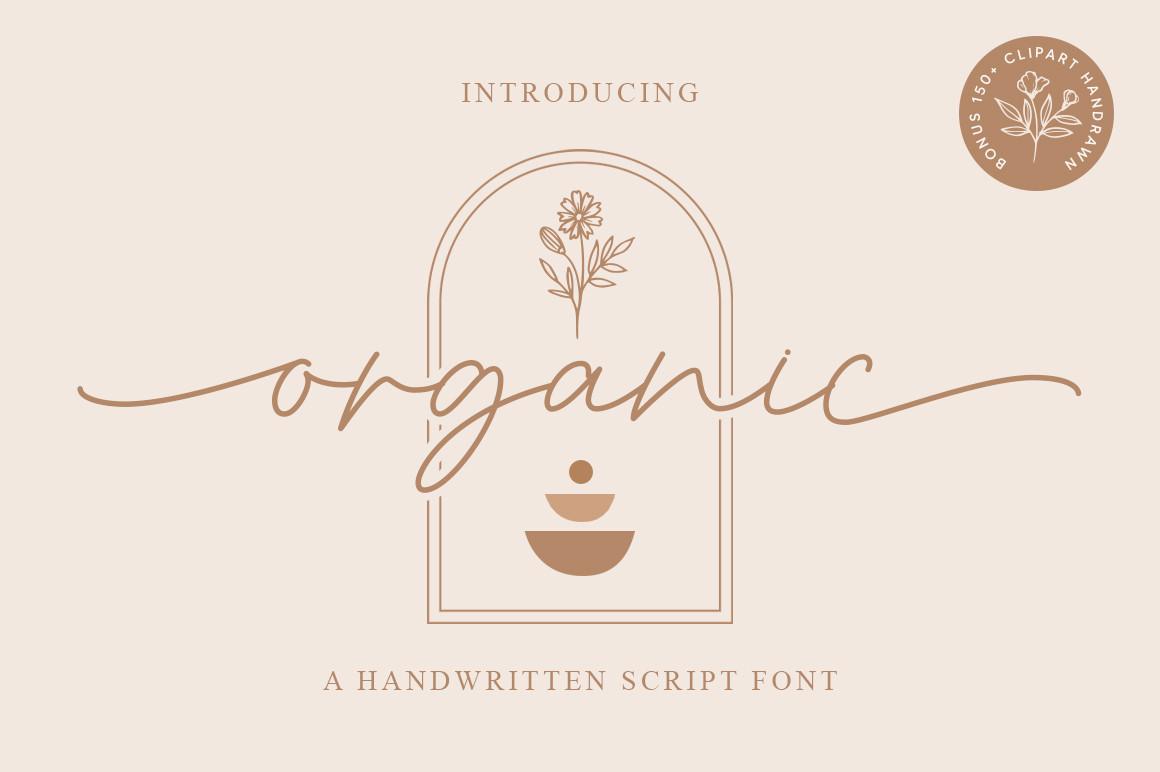
Organic Font Description
Organic is a dainty handwritten font, masterfully designed to become a true favorite. It maintains its classy calligraphic influences while feeling contemporary and fresh. Organic is PUA encoded which means you can access all of the glyphs and swashes with ease!